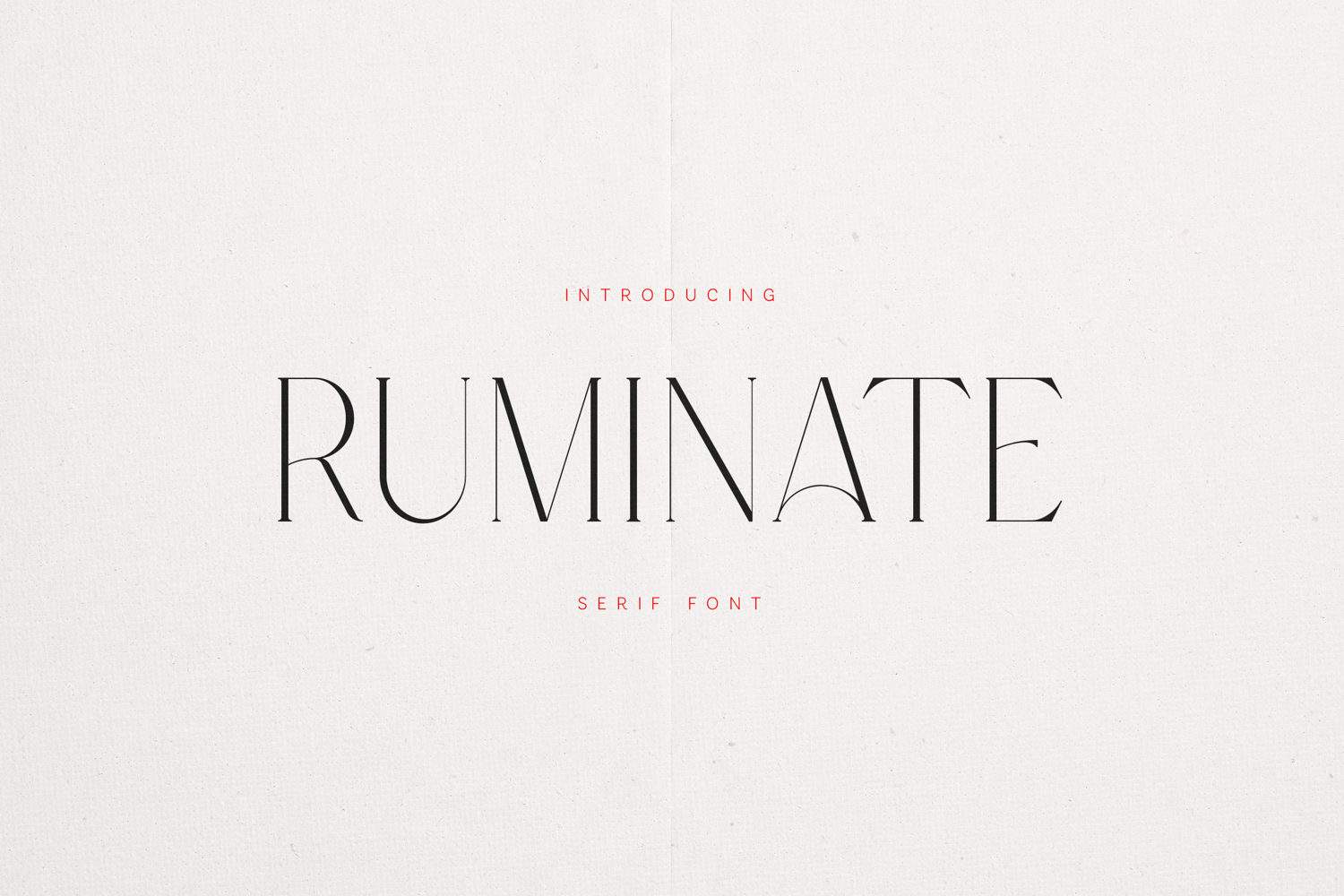
Ruminate Elegant Modern Serif Font
Ruminate is a refined modern serif typeface designed for elegant branding, luxury editorials, and high-end visual identities.
With its delicate contrast, graceful curves, and sophisticated letterforms, Ruminate balances minimalism with expressive character. The sharp yet fluid details make it perfect for fashion campaigns, premium packaging, logo design, wedding stationery, and artistic layouts.
This typeface delivers a soft contemporary presence while maintaining a timeless serif structure — ideal for designers who want something subtle, stylish, and memorable.
Carefully crafted spacing and proportions make it highly versatile for both display headlines and refined body compositions.
• Fashion branding
• Editorial layouts
• Luxury logos
• Wedding invitations
• Beauty & cosmetic brands
• Minimalist packaging
• Creative direction projects
Ruminate is built to elevate modern visual storytelling.